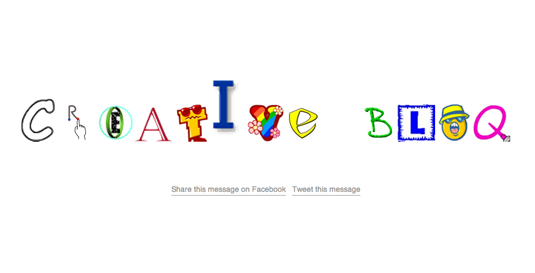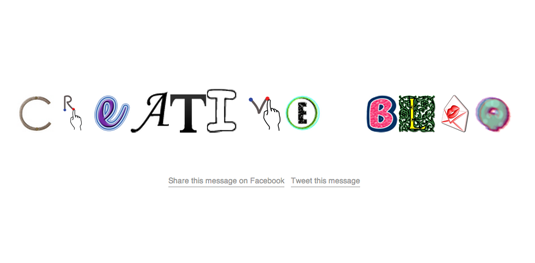
Create image-based fonts in an instant with Google Type
Have a bit of Google-based typography fun with this new website that typography fans will adore.
A new website has sprung up that will be manna from heaven for fans of both Google and typography - Google Type.
Google Type uses Google's image search engine to create a custom font from images found around the web. Google's image search is already set up so that if you simply type a single letter of the alphabet into it, it returns a list of images of that letter.
The site is not an official Google website; it has been set up by a group of Brussels, Belgium-based developers called Internet Club, named Cecilia, Constant, Damien, Jean, Patrick, Pierre, Ramin, Raphael, Thibault, Thomas, and Tom.
The only message on the sparse Internet Club website is: "Because Internet gave us so much we decided to give back", and it appears that Google Type is the first gift of 32 that the team plan to give us.
We can't wait to see what's next - but in the meantime we'll be playing with Google Type...